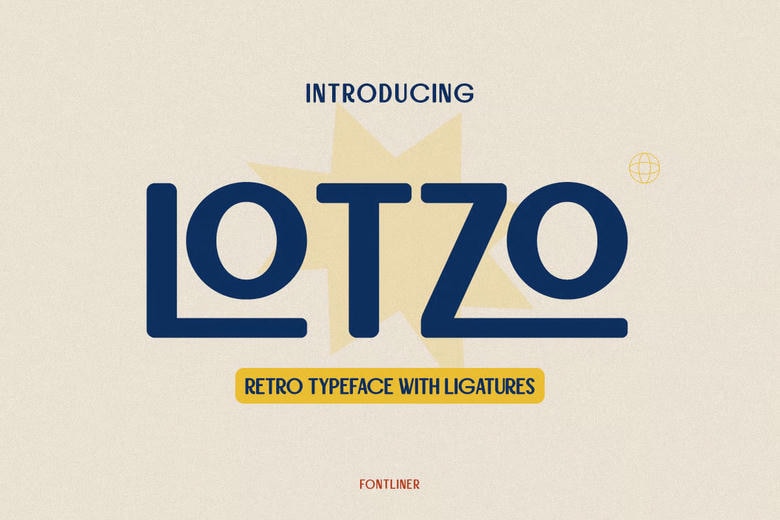
Lotzo Font
Lotzo is a bold retro font that blends nostalgic charm with a modern feel. Inspired by vintage signs and classic branding, it features smooth curves, balanced shapes, and unique ligatures. Each letter looks playful and confident, helping your designs stand out.
Lotzo works well for all kinds of creative projects. Use it for logos, branding, posters, packaging, or social media. Its retro style feels new, and the special ligatures add character to your typography, making your designs easy to recognize.
Lotzo is a great choice for designers who want a retro style. It offers a vintage look while staying clear and easy to read. Lotzo stands out in headlines and display text, making it perfect for branding, editorial layouts, and digital content that needs personality.
Lotzo Display Font